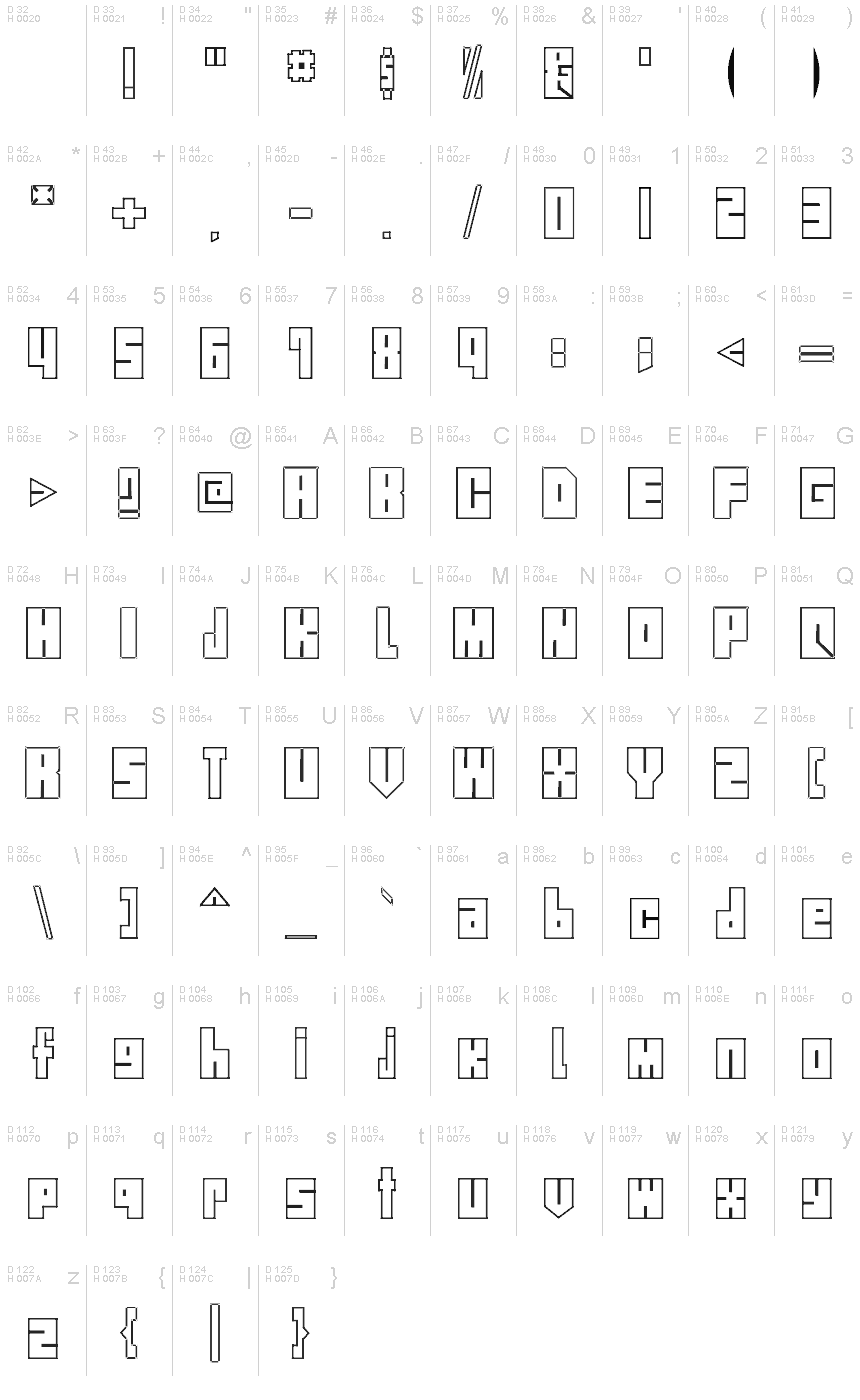
Street Block
Street Block, a creation by Good-Looking Peoples of America Inc., is an outlined display font that commands attention with its extra-bold weight. The font's unique characteristics lie in its robust structure and contemporary outline style, making it a standout choice for designers looking to make a bold statement.
The aesthetic appeal of Street Block is undeniable; it exudes urban sophistication with clean lines that retain readability while offering high visual impact. Its outlined nature adds a modern twist to the extra-bold design, enabling a striking play of negative space that can enhance any composition.
Ideal for branding, poster design, headlines, or any project requiring an assertive and edgy typographic approach, Street Block offers versatility within its distinctive style. Its suitability for diverse creative projects lies in its ability to marry assertiveness with elegance—a rare quality that makes this font not just another typeface but an essential asset in the designer's toolkit.